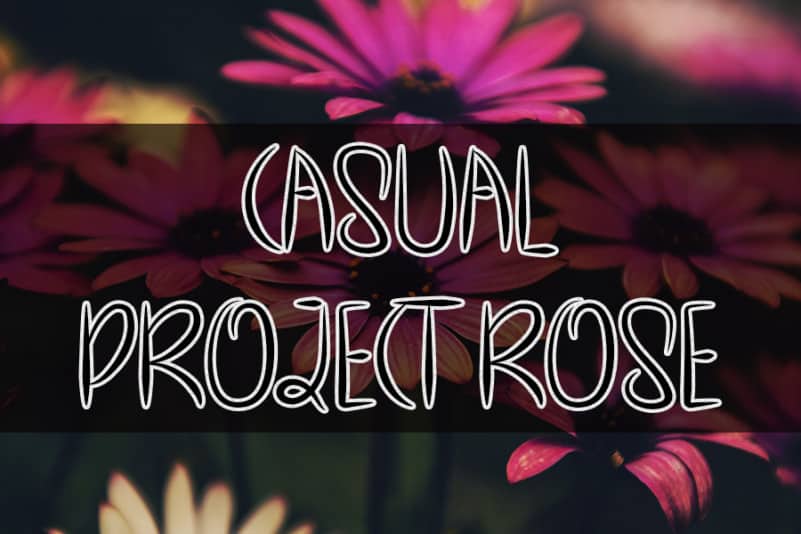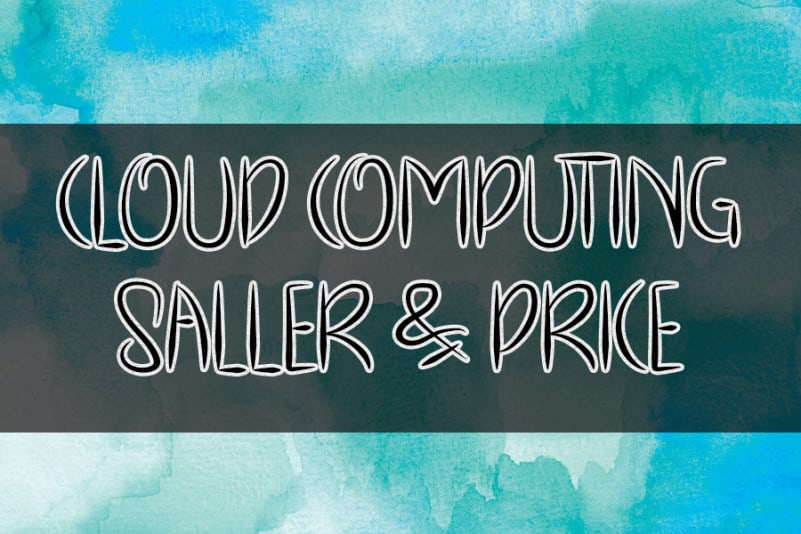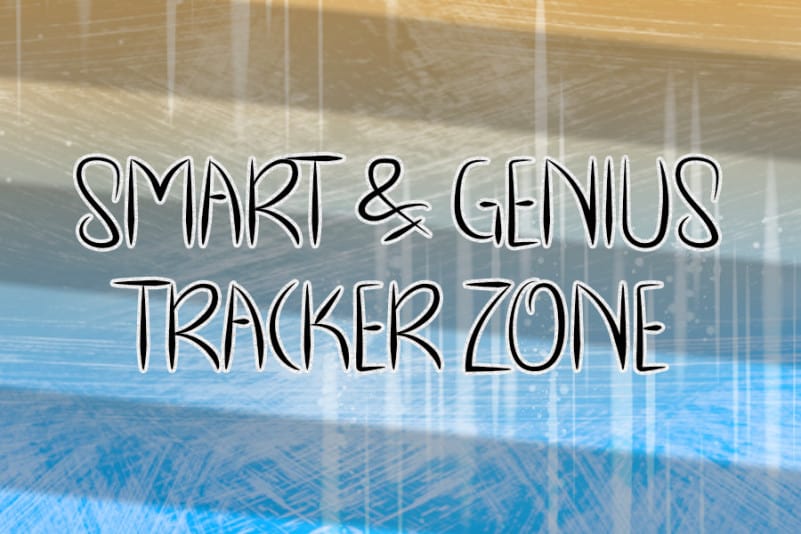
Cryspo Shoop Display Font
Cryspo Shoop Display Font is a great handwritten font. It maintains its classy calligraphic influences while feeling contemporary and fresh. This versatility will appeal to a wide range of crafty ideas, from letterheads and titles to stationery.